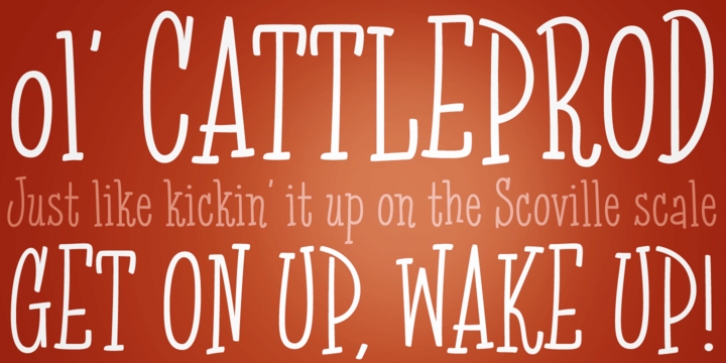
Publisher: Pink Broccoli
Cattleprod is an offbeat slab serif font full of swagger. It was created without any reference, but just the idea of a playful somewhat stumbling stance in mind.